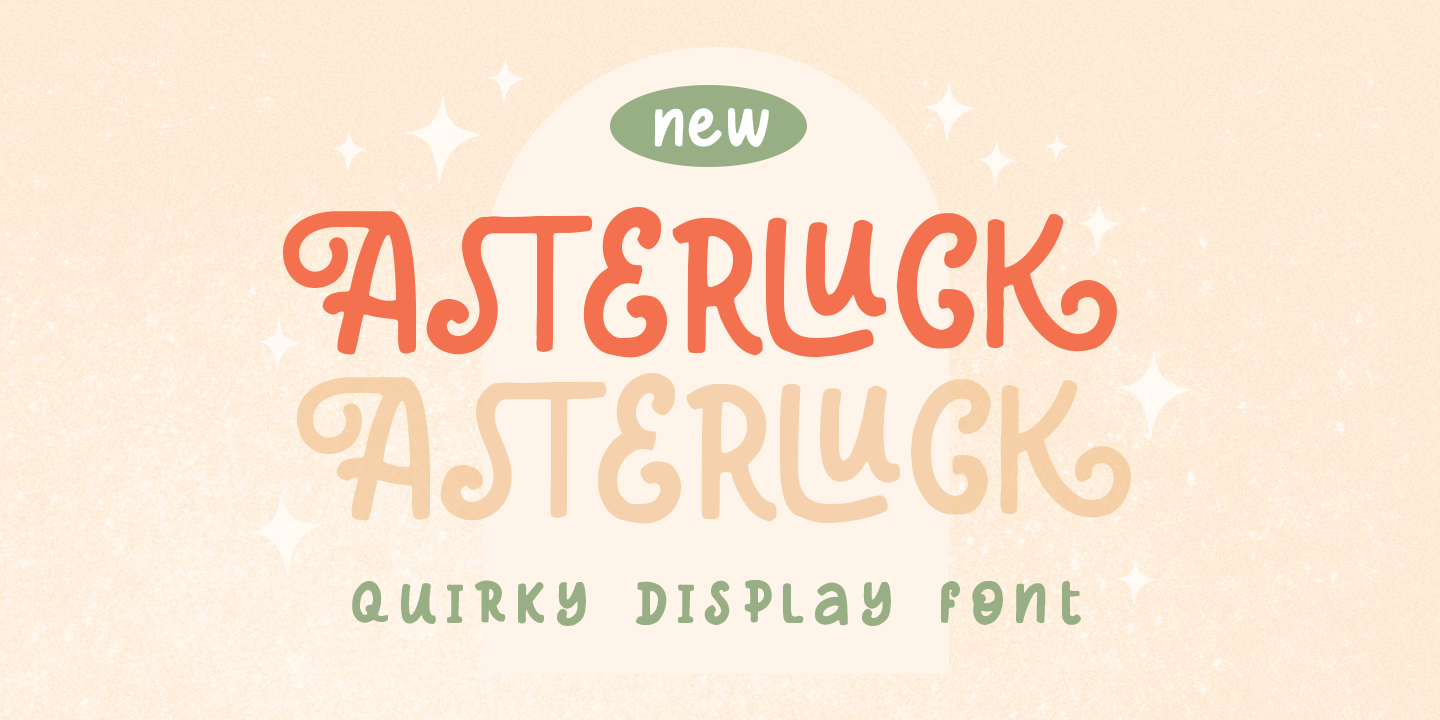
Designed by Hendry Juanda, Asterluck is a hand display font published by Letterhend Studio.
Introducing, Asterluck - A quiirky display font. This font has unique shape, very suitable for casual and playful theme design. This font also perfectly made to be applied especially in logo, and the other various formal forms such as invitations, labels, logos, magazines, books, greeting / wedding cards, packaging, fashion, make up, stationery, novels, labels or any type of advertising purpose.